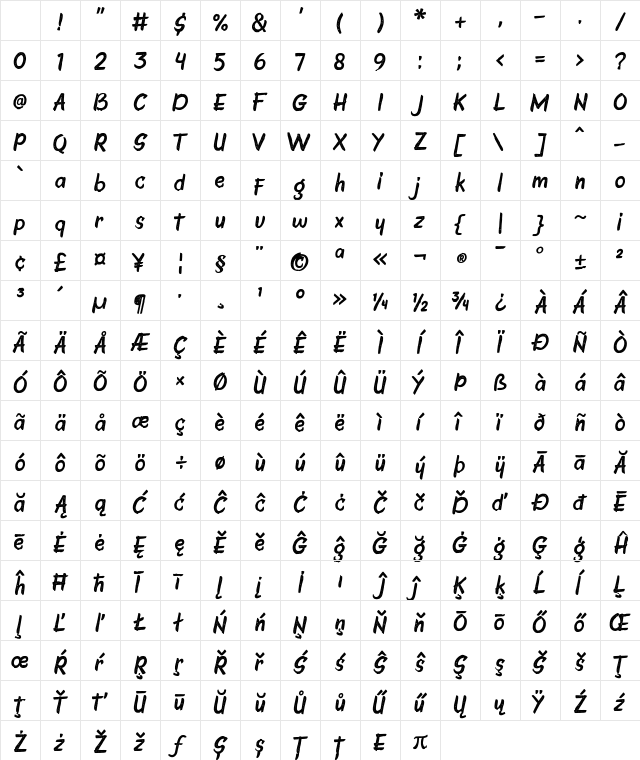
Faito Rough embraces imperfection - its rough, textured character adds raw authenticity to designs that want to feel lived-in and unconventional.
Pro Tip: Use Faito Rough at larger sizes where the texture and irregularity of each letterform can be clearly seen - it loses its character at small sizes.